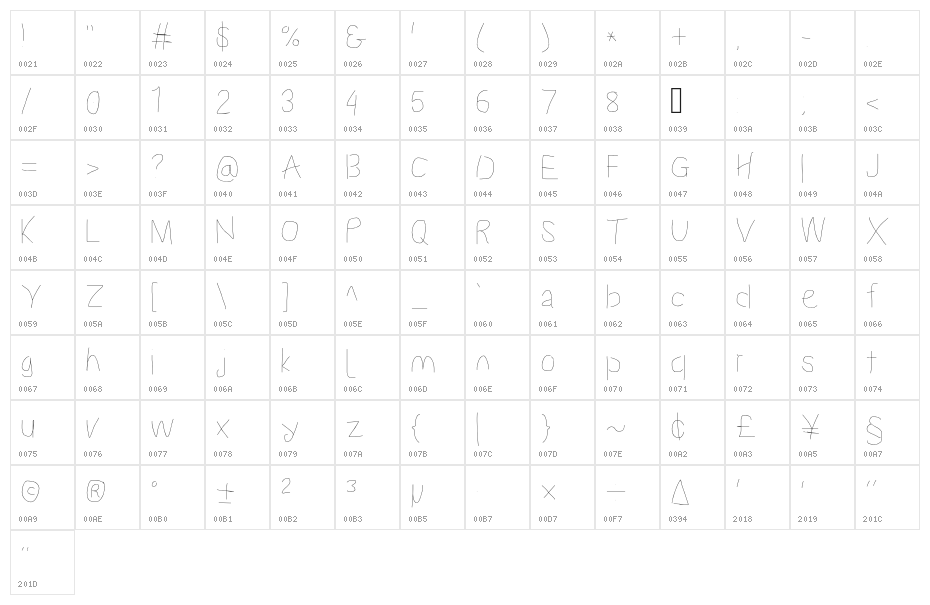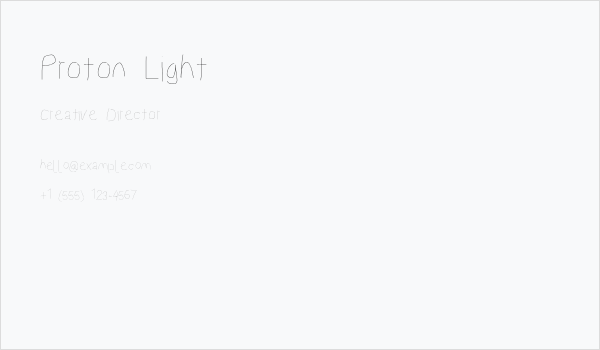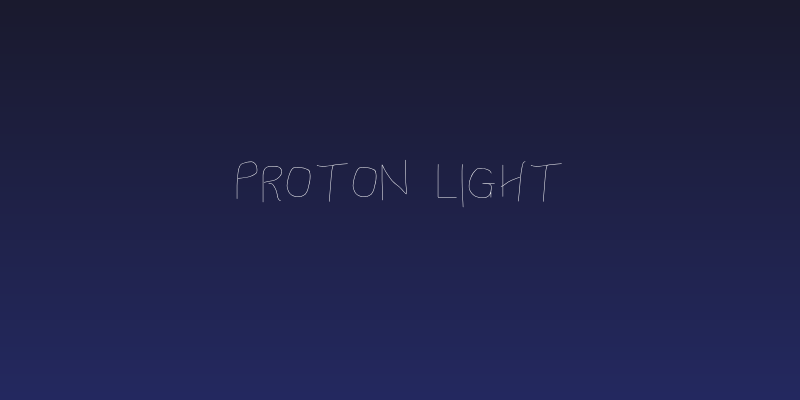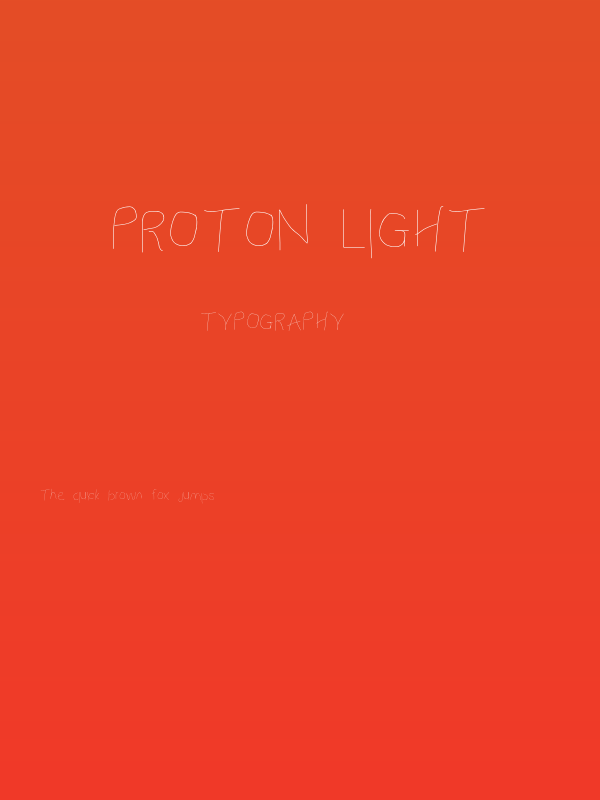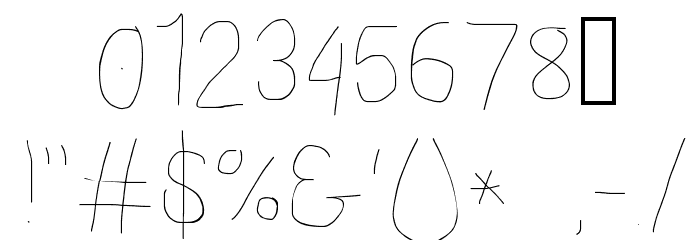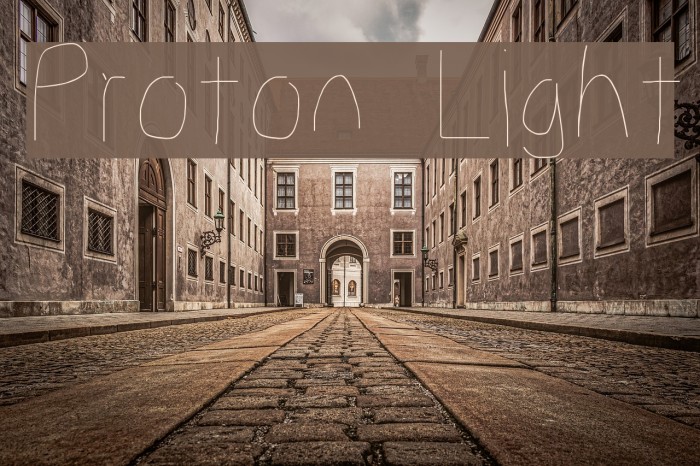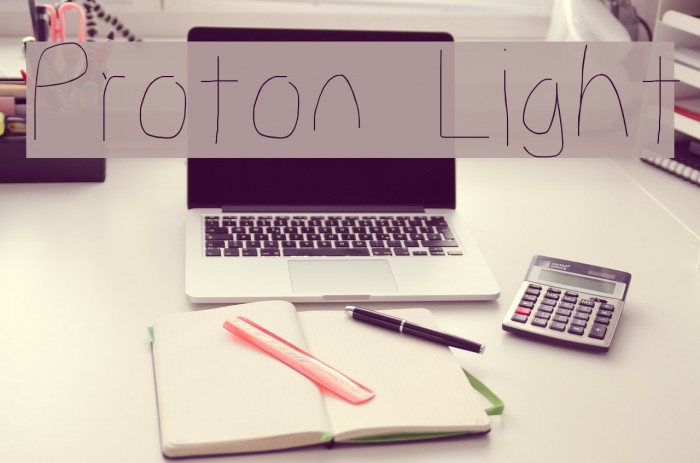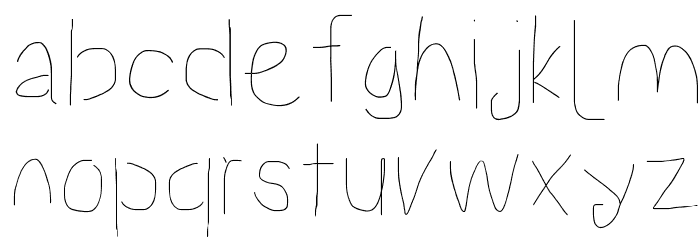
Proton Light Font
Proton Light Description
This font features a light, airy design with a handwritten aesthetic. The characters are thin and elongated, giving a sense of elegance and simplicity. The strokes are consistent in width, providing a uniform appearance across all characters. The uppercase letters are slightly taller than the lowercase, maintaining a balanced proportion. The numerals are clear and distinct, matching the style of the alphabet. Special characters are included, maintaining the same delicate and minimalist style. The overall look is modern and clean, suitable for projects that require a personal touch.
| Use Case | Logos, Invitations, Personal branding |
| Proposed Projects | Ideal for personal branding, invitations, greeting cards, and minimalist design projects. |